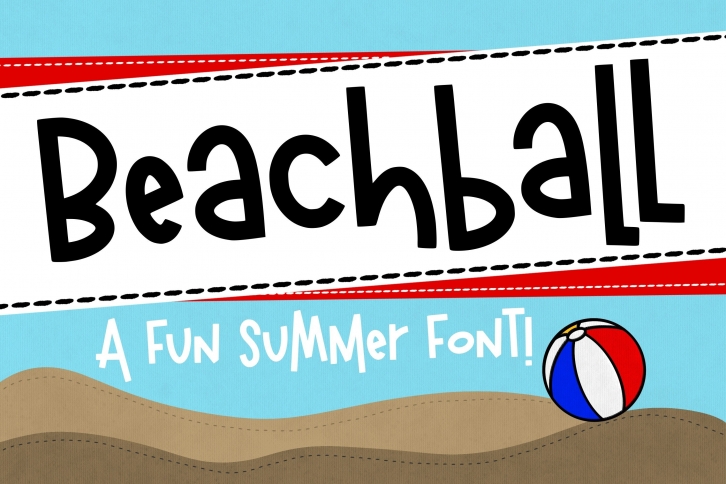
Looking for a fun and quirky font for your next project? Look no further than Beachball Font! This bold font is perfect for adding a touch of personality to any project. Whether you’re creating a sign or banner, or just want to add some fun to your next craft project, Beachball is the perfect choice. So don’t wait, add some personality to your projects today with it!